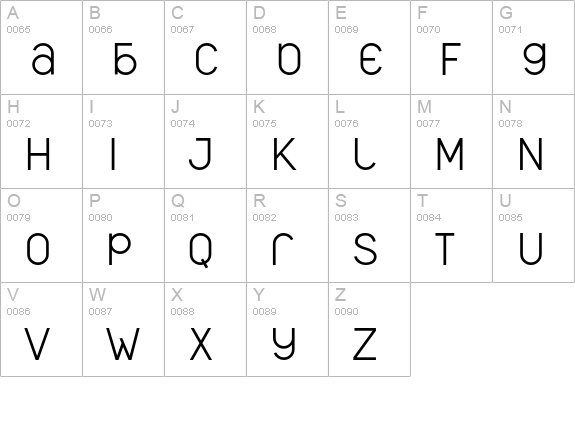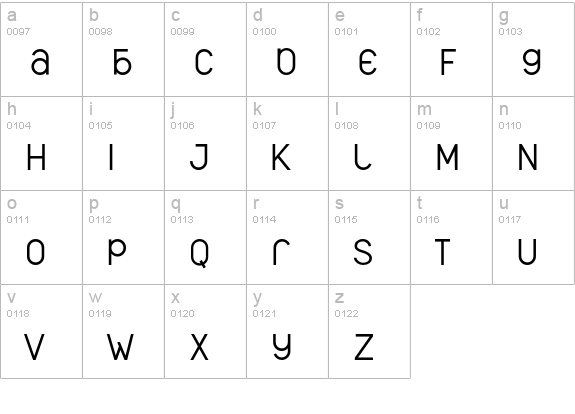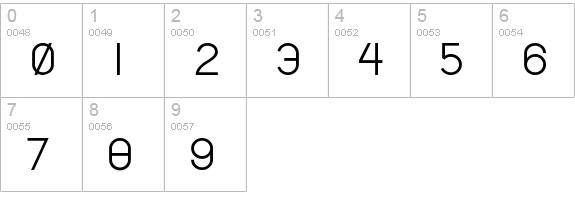
Spoing Font Details
Spoing font is a captivating and versatile typeface that will bring a touch of modernity and sophistication to any design project. With its sleek and elegant letterforms, Spoing is perfect for creating eye-catching headlines, logos, posters, and more. This font exudes a unique charm that effortlessly combines classic elegance with a contemporary twist. Its smooth lines and balanced proportions make it easy to read, ensuring that your message shines through in a clear and stylish manner. Spoing font is not only visually stunning, but it is also incredibly versatile. Whether you're designing a website, a brochure, or a branding project, this font will adapt effortlessly to any style or theme. It can be used to create a bold and impactful look or to add a subtle touch of sophistication to your designs. One of the best things about Spoing font is that it is completely free. It is available for download at FontsMarket.com, a trusted online platform for high-quality fonts. This means that you can use this font in both personal and commercial projects without spending a dime. Spoing font is truly a must-have for any designer looking to add a touch of elegance and modernity to their creations. So why wait? Head over to FontsMarket.com and download this remarkable font today!